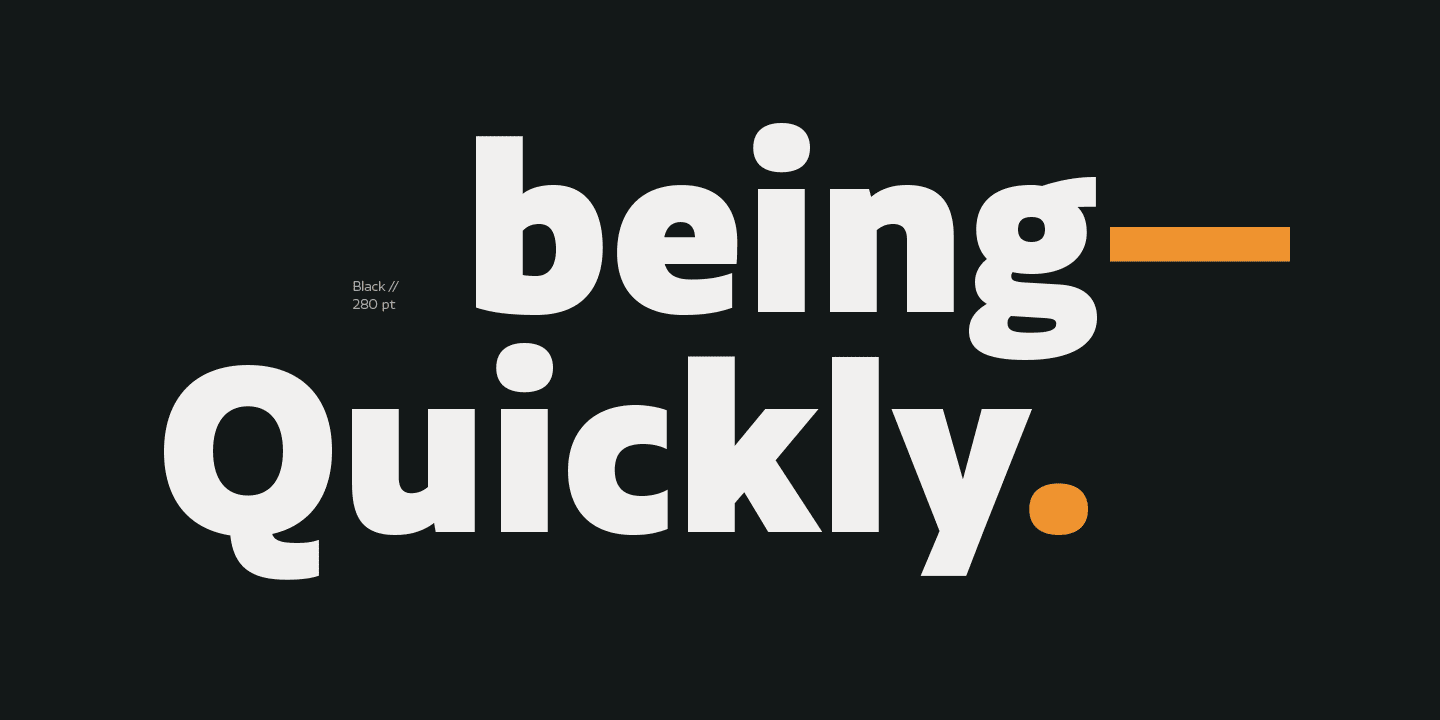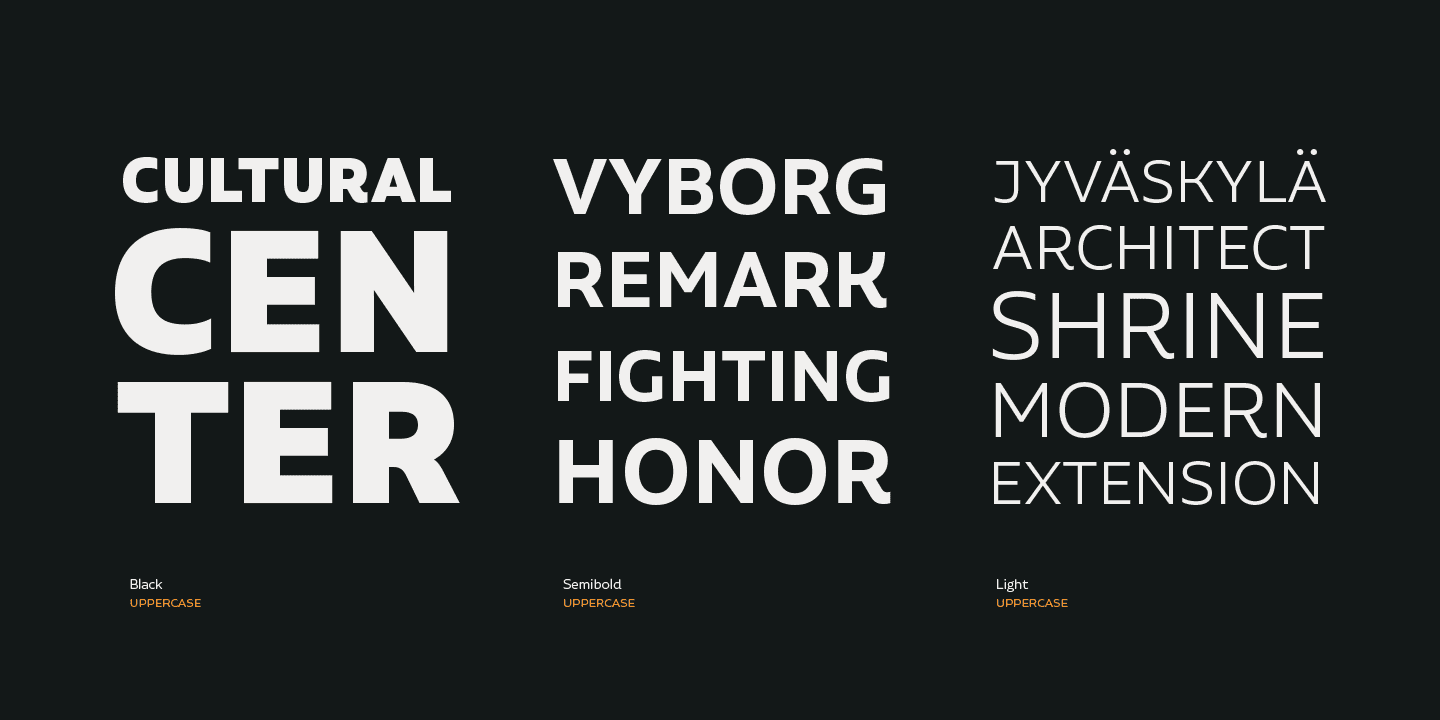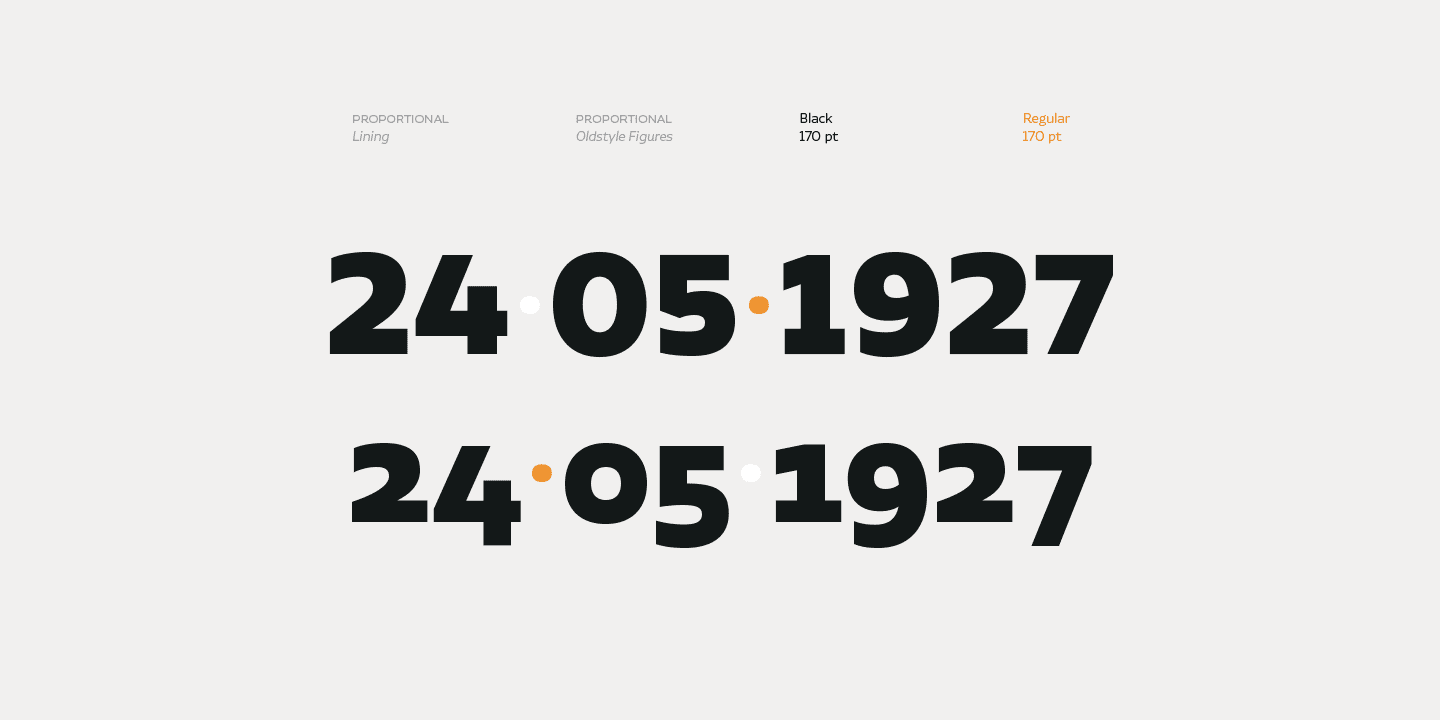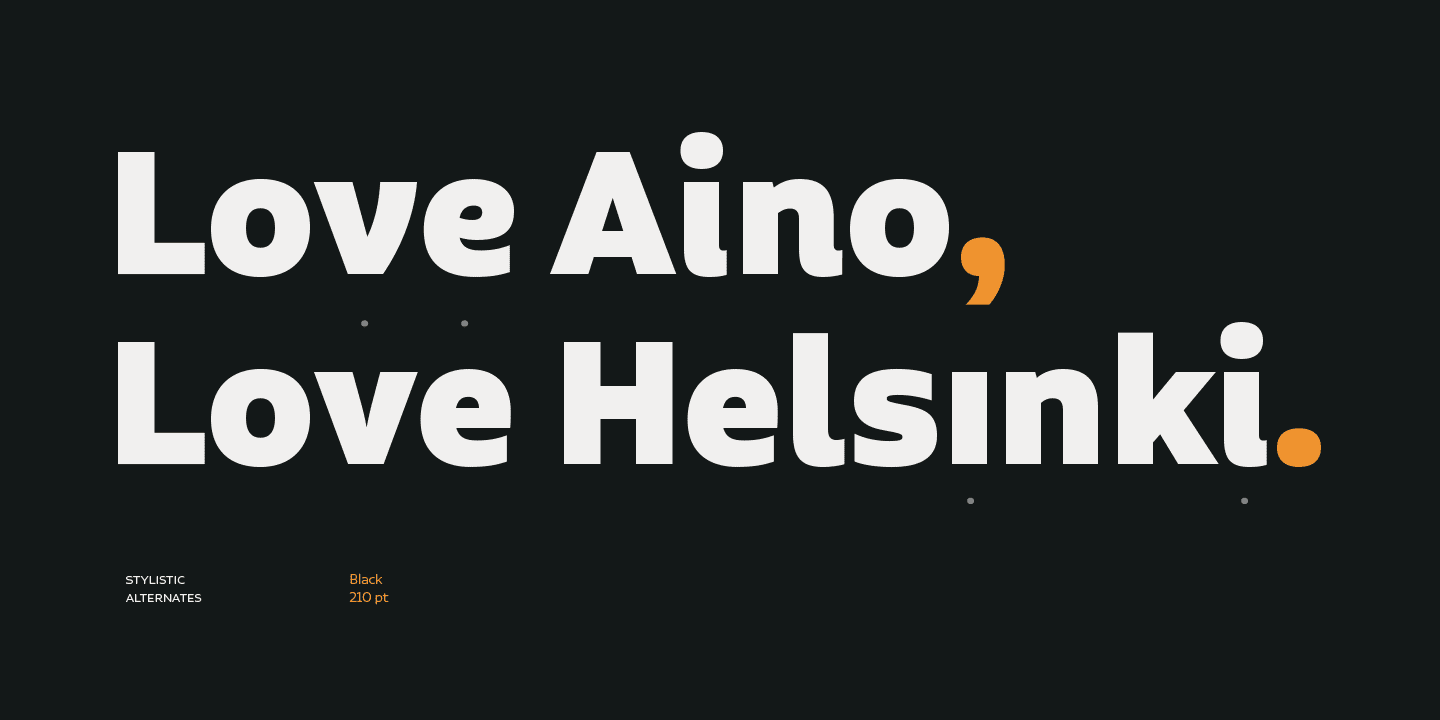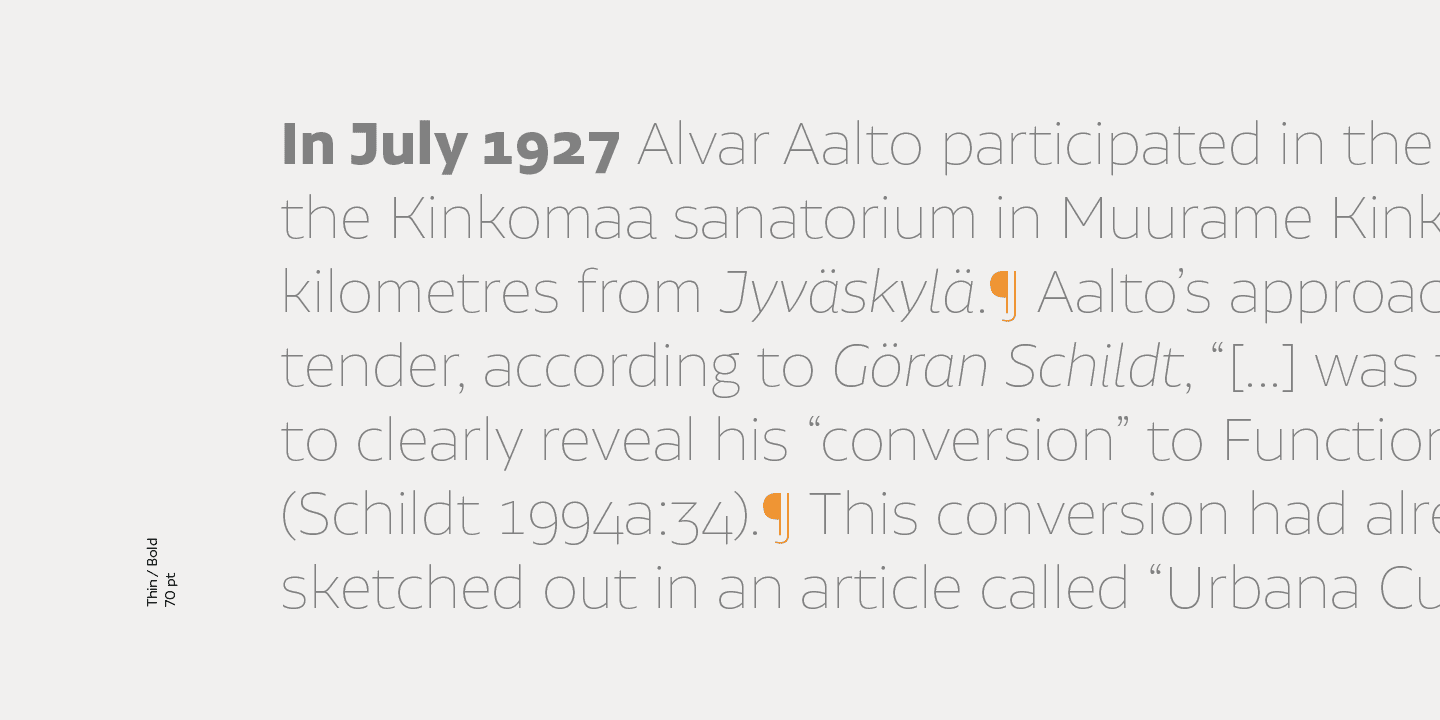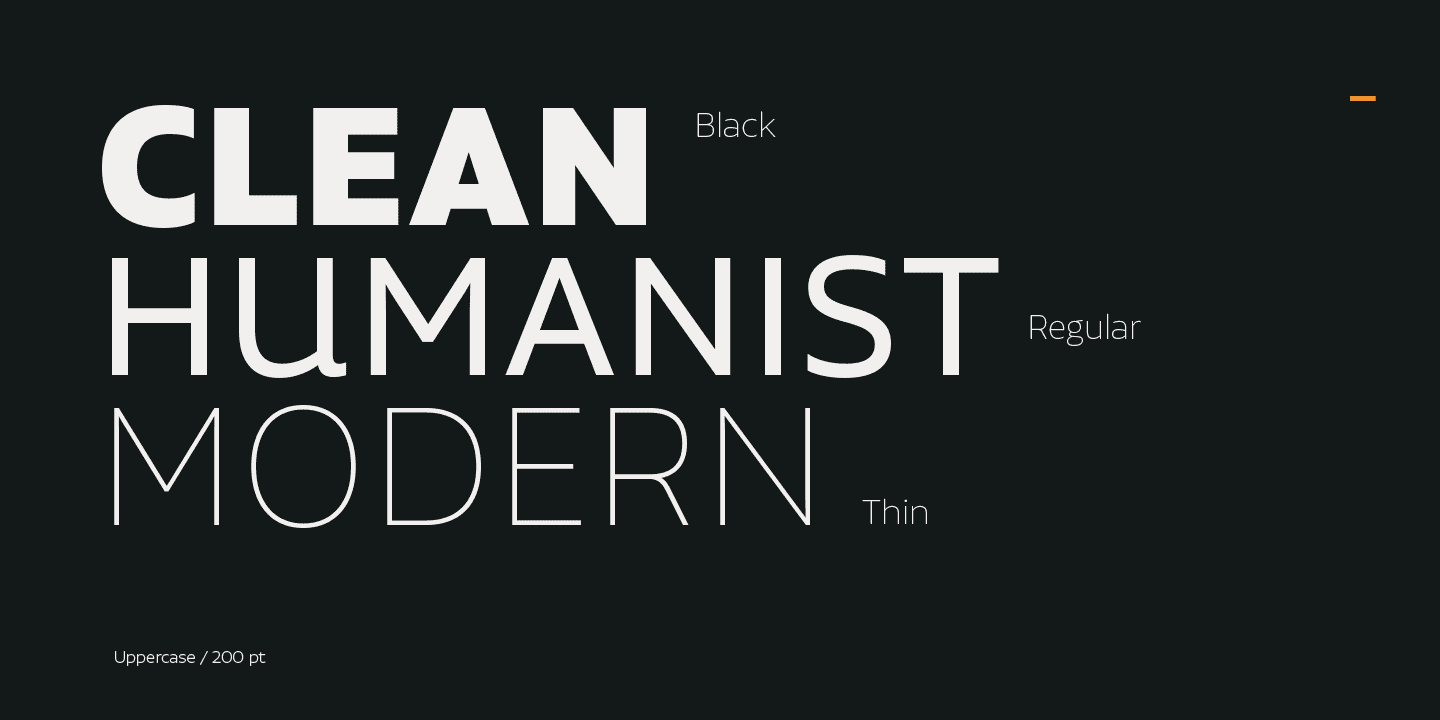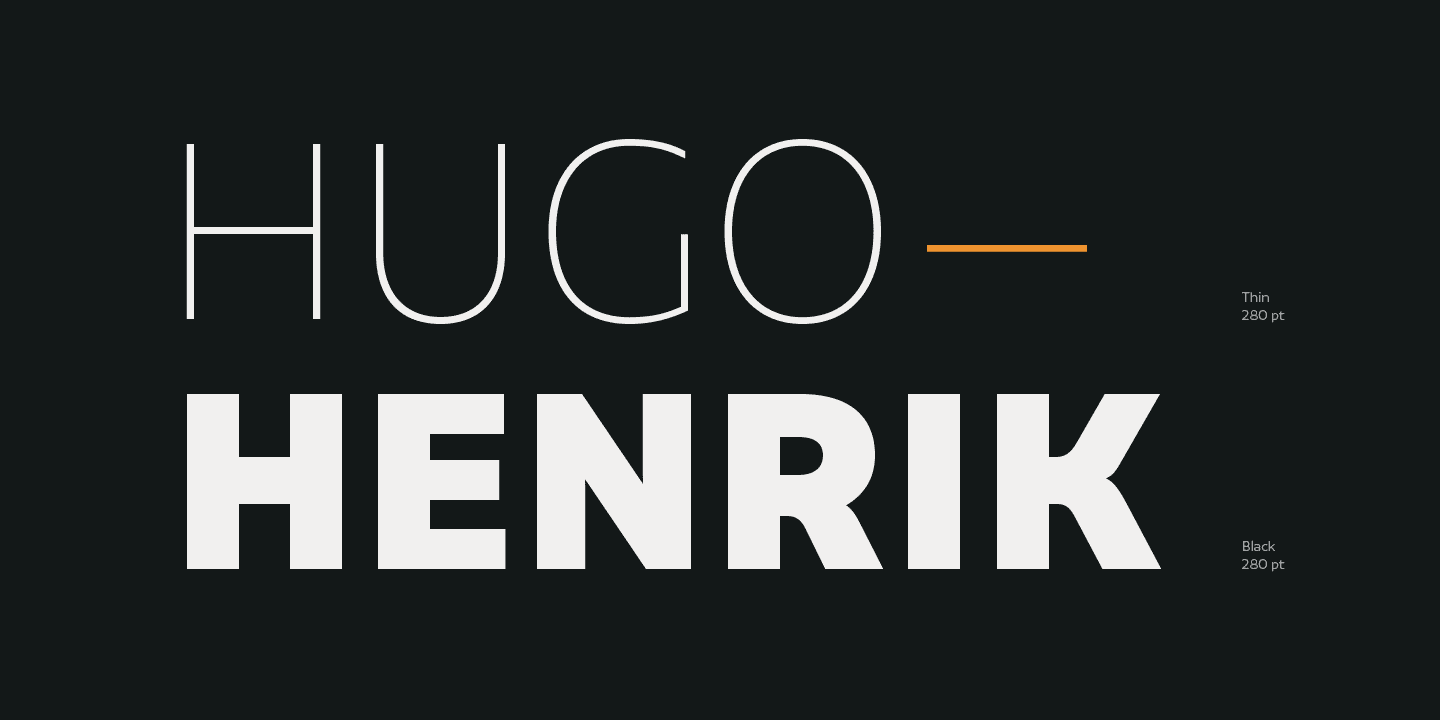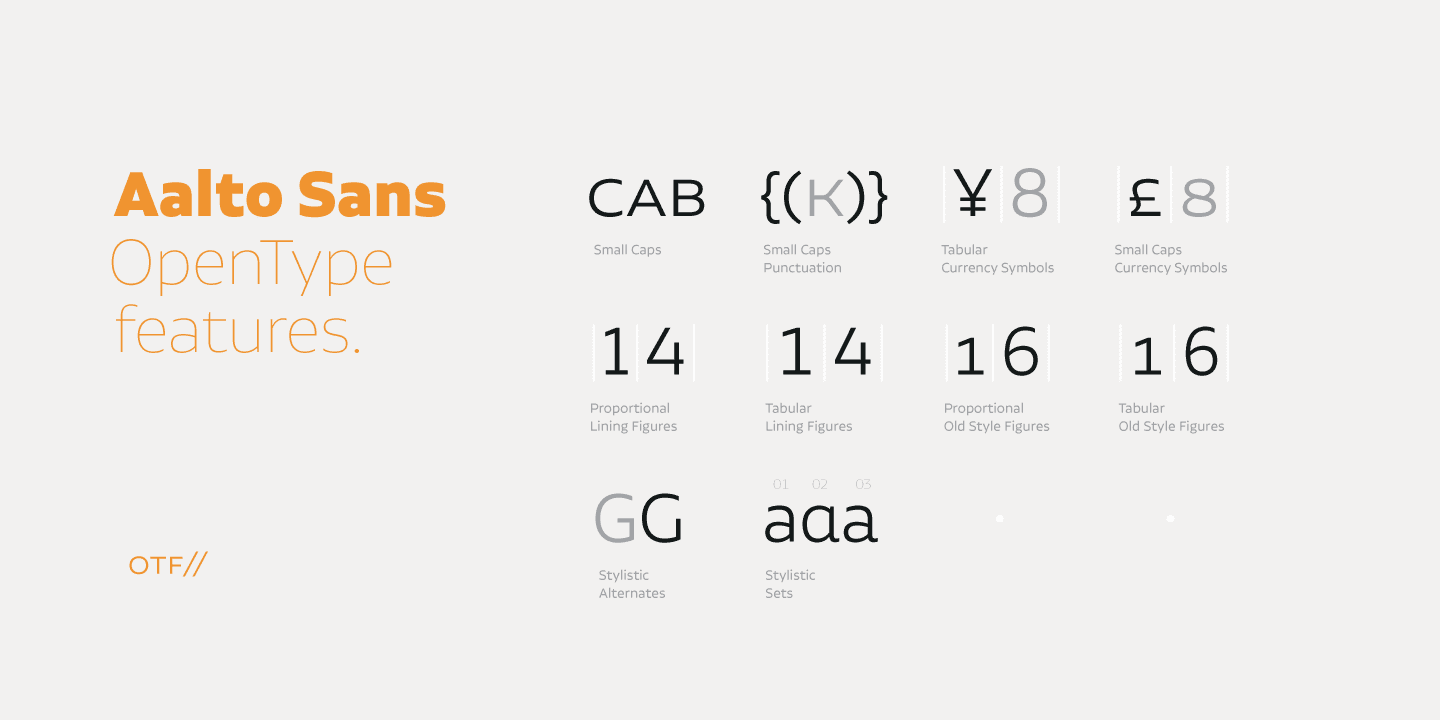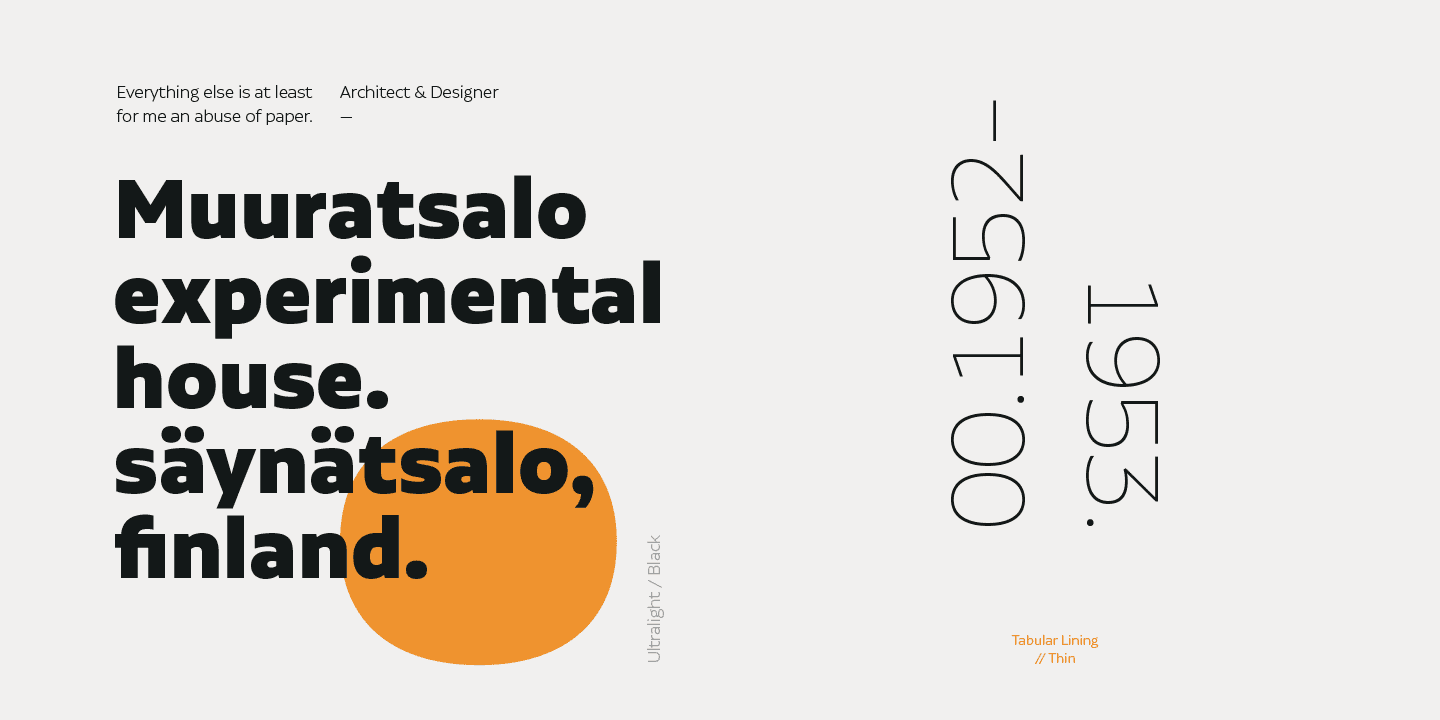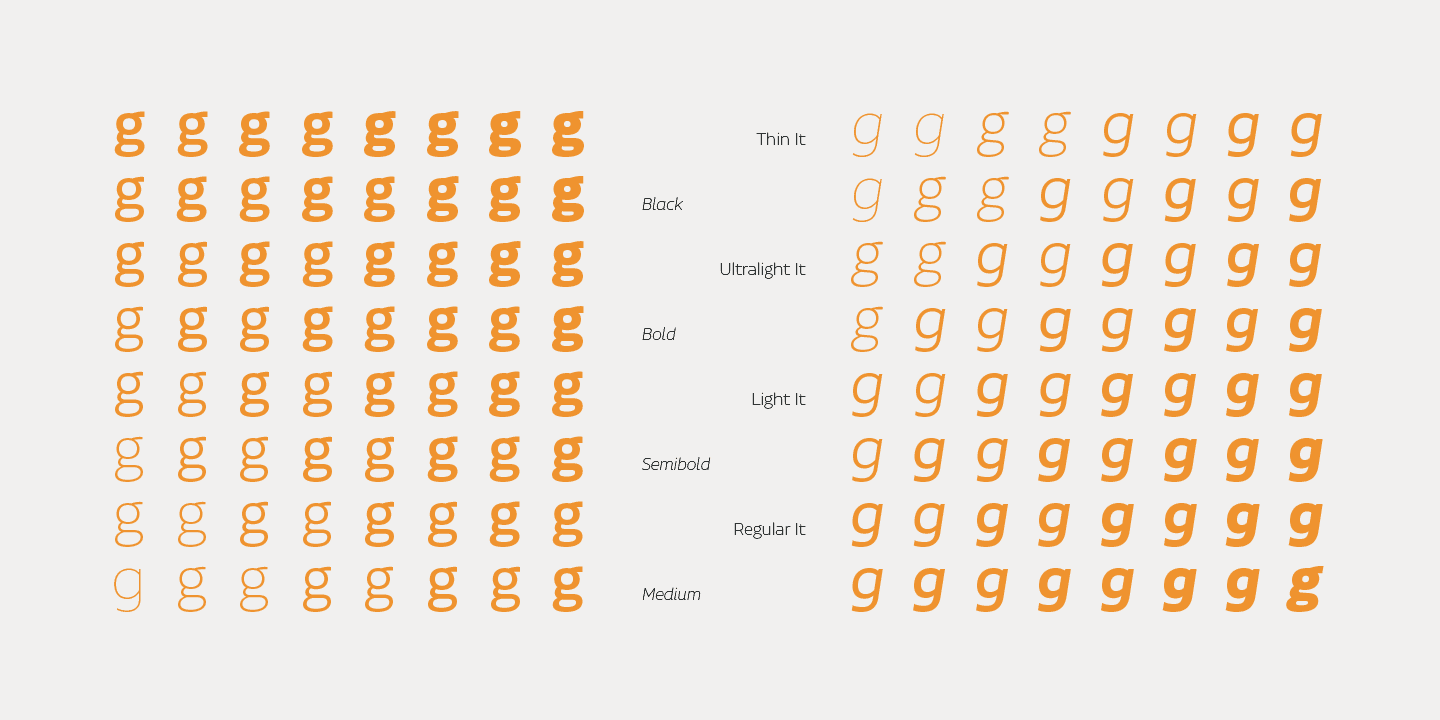
Aalto Sans comes in 8 weights with matching italics and the whole family is composed of 3 subfamilies: Pro, Essential and Alt Essential, resulting in a total of 48 different styles. The Pro version includes a Latin Extended character set and OpenType features—stylistic alternates, small caps, case-sensitive forms, proportional and tabular figures, currency symbols, etc. The Essential and Alt Essential versions are well-suited for both web and corporate use.